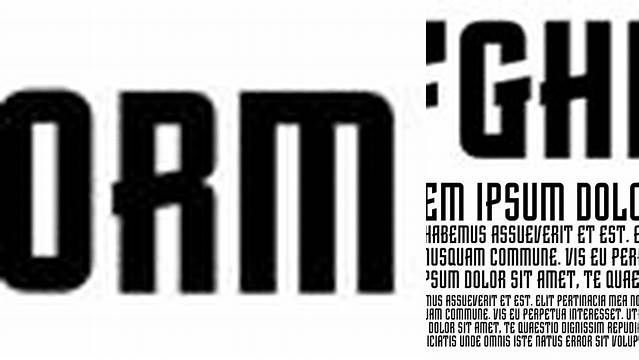
Alright, design enthusiasts! Let's dive headfirst into the world of typography and talk about something awesome: the Logoform Bold Font! And the best part? You can get a free download! This article is your ultimate guide, packed with everything you need to know about Logoform Bold, from where to snag it to how to use it to create some seriously eye-catching designs. So, buckle up, guys, because we're about to embark on a font-tastic journey! We'll explore its unique characteristics, how to use it effectively, and some cool design tips to get you started. Let's get this show on the road and unlock the potential of this fantastic font!
H2: Unveiling the Power of Logoform Bold: A Font Overview
Logoform Bold Font is a contemporary typeface that instantly grabs attention. It's a bold, strong, and versatile font that's perfect for making a statement. Its clean lines and modern aesthetic make it ideal for various design projects, from logos and branding to website headings and print materials. Think of it as the ultimate design tool for communicating with clarity and impact. The font's characteristics are its strength and readability, which are crucial for any design to resonate with its audience. Let's dig deeper into what makes Logoform Bold stand out from the crowd. When you first lay eyes on Logoform Bold, you'll notice its striking weight. It's designed to be noticed, making it perfect for headlines, titles, and anywhere you want to draw immediate attention. The font's clarity is another defining feature. Even at smaller sizes, Logoform Bold maintains its readability, ensuring your message is always clear. The versatility of Logoform Bold also shines through. It complements a variety of design styles, from minimalist to modern. Logoform Bold offers design enthusiasts a wide range of possibilities. Whether you're creating a professional logo or a captivating website, Logoform Bold has the versatility to meet your needs. Whether you're a seasoned designer or just starting out, this font can be a game-changer for your projects. Don't let this opportunity pass you by; explore the possibilities and start creating stunning designs with Logoform Bold today. Consider its strong presence and versatility when deciding on your next project. It's a font that speaks volumes, so get ready to let your creativity flow and see what amazing things you can create with it!